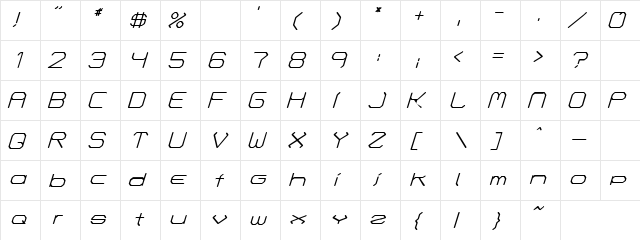
Thin Line Slanted Regular Font Preview
Design Context for Thin Line Slanted Typeface
Thin Line Slanted takes a measured approach to typography — its balanced proportions and neutral character make it a reliable workhorse for both digital and print work. The dynamic lean of this cut emphasises speed and emphasis in any layout. The delicate stroke weight brings airiness and refinement to layouts.